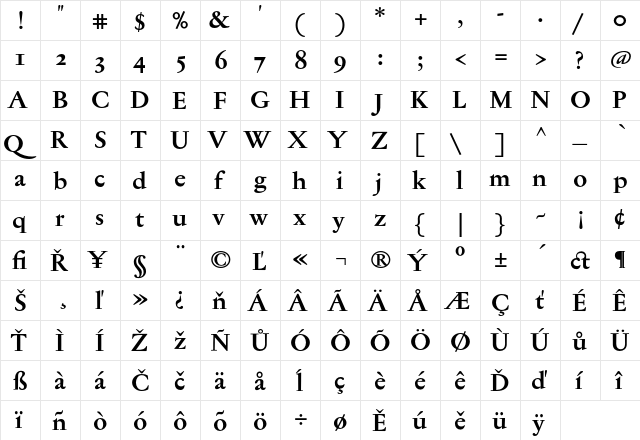
Jannon Text OSF Bold Font Preview
Jannon Text OSF Bold
Design Context for Jannon Text OSF Typeface
Jannon Text OSF takes a measured approach to typography — its balanced proportions and neutral character make it a reliable workhorse for both digital and print work. The heavy weight commands attention and anchors typographic hierarchies.